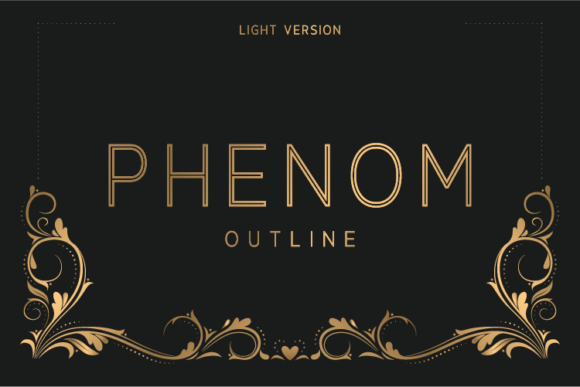
Embark on an enchanting typographic journey with Phenom Outline Light, a sans serif masterpiece that captivates hearts with its captivating curves and striking presence. Designed by the skilled artisans at Nan Design, this exquisite font family exudes elegance and sophistication, promising to elevate your creative projects to extraordinary heights.
Phenom Outline Light possesses a mesmerizing blend of delicate strokes and captivating details, seamlessly combining the allure of the classic with a touch of the avant-garde. Let your words dance gracefully across the digital canvas, captivating your audience with every letter, every phrase, every headline.
With Phenom Outline Light, you hold the key to unlocking a world of limitless creativity. Whether you're crafting logos that demand attention, designing breathtaking posters that leave a lasting impression, or weaving enchanting stories through eye-catching book covers, this font is your steadfast companion, transforming your vision into reality.
Unleash the boundless potential of Phenom Outline Light and witness the transformation of your designs. Its meticulously crafted characters, adorned with intricate details, breathe life into your words, inviting your audience to embark on a visual symphony.
Don't settle for ordinary fonts that blend into the background. Embrace the allure of Phenom Outline Light, a font that commands attention, captivates hearts, and leaves an indelible mark on the minds of those who behold it.